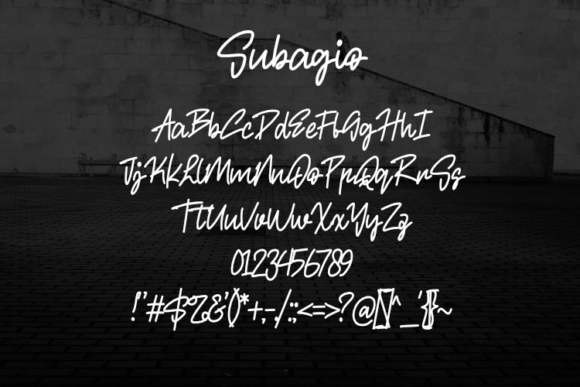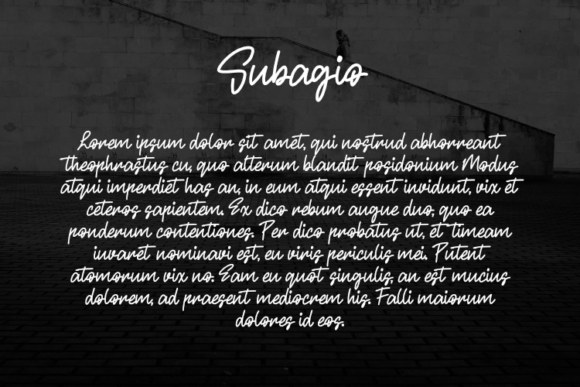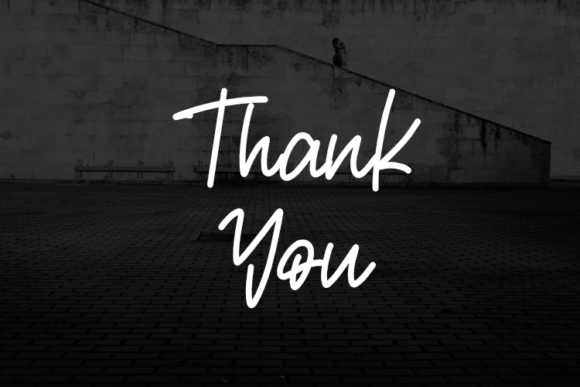
Subagio Font
Experience the creative versatility of “Subagio,” a masterfully crafted font ideal for taking your fashion design projects to new heights. Be it trendy clothing or unique t-shirts, this font exquisitely enhances the appeal of your design. “Subagio” is a seamless fit in any design sphere and perfectly compatible with all software, ensuring an effortless design process. Included in otf file format, “Subagio” is your ultimate choice for creating compelling design narratives.